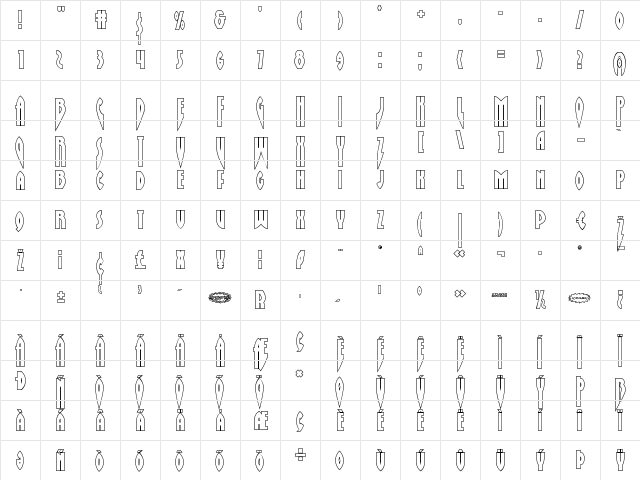
Zirconian Outline Regular
Design Context for Zirconian Outline Typeface
Zirconian Outline brings ornamental detail and strong personality to headlines and identities, where visual impact matters more than quiet functionality.
Font Pairing: Pair with a clean neutral sans-serif for body copy to let Zirconian Outline's character lead without overwhelming the composition.
Pro Tip: Use Zirconian Outline exclusively at display sizes — it was designed to be seen, not read at length. Let a neutral companion handle body copy.